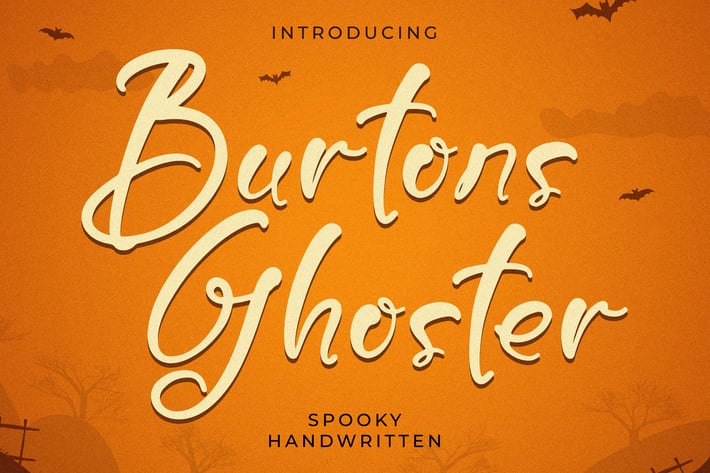
Burtons Ghoster Spooky Handwritten Font
Burtons Ghoster brings a playful spooky vibe to your creative projects, mixing handwritten charm with a warm Halloween atmosphere. This font feels lively, quirky, and full of personality — perfect for designs that need a fun seasonal touch. Its smooth strokes and friendly curves make it super versatile whether you're designing for events, branding, or themed content. Add instant festive energy to your visuals with a typeface that feels both cute and haunting.
Smooth handwritten style with spooky character
Clean curves & consistent strokes
Great readability for display usage
Halloween posters
Party invitations
Seasonal branding
Social media graphics
Kids & school event materials
Product packaging
Greeting cards
Make your Halloween designs instantly stand out with a handwritten font that’s spooky, cute, and full of festive charm.